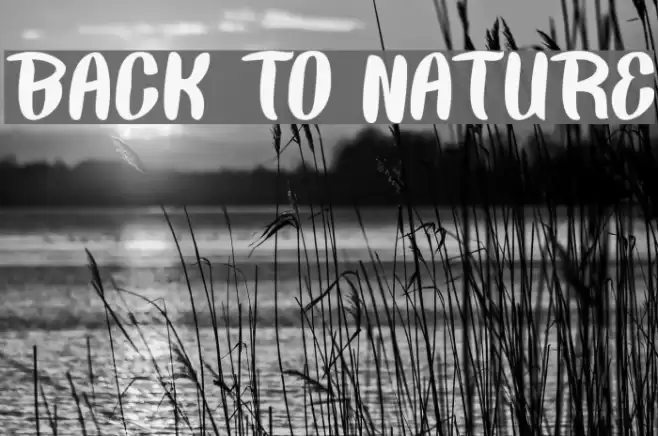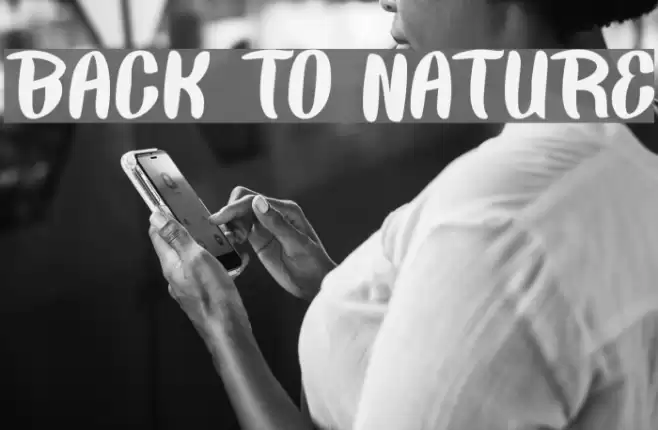
BACK TO NATURE Font
BACK TO NATURE Description
This font features a bold and playful script style with a handwritten feel. The letters are rounded and slightly slanted, giving it a casual and friendly appearance. The strokes are thick and consistent, providing a strong visual impact. The font maintains a uniform weight throughout, with smooth curves and a flowing design that enhances readability. It is well-suited for projects that require a personal touch or a sense of warmth and approachability.
A bold, playful script font with a handwritten feel from Uncategorized fonts.
- Proposed Projects: Ideal for greeting cards, invitations, logos, and branding materials that aim to convey friendliness and creativity.
- Overall Style: Playful, Casual
- Use Case: Logos, Invitations, Greeting Cards